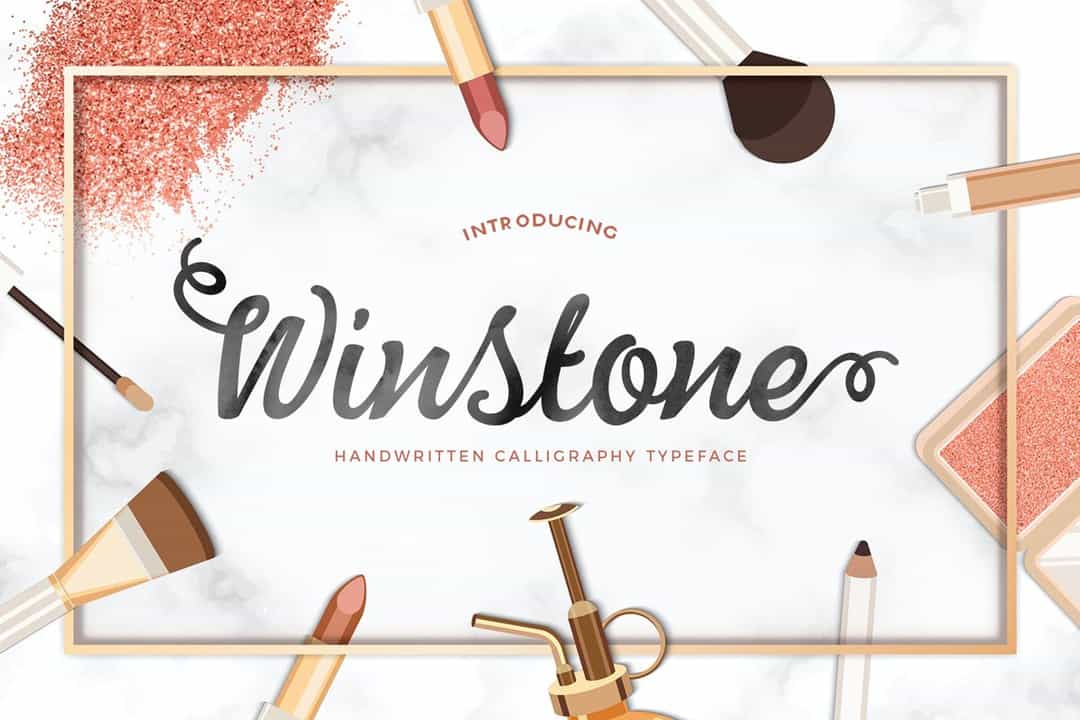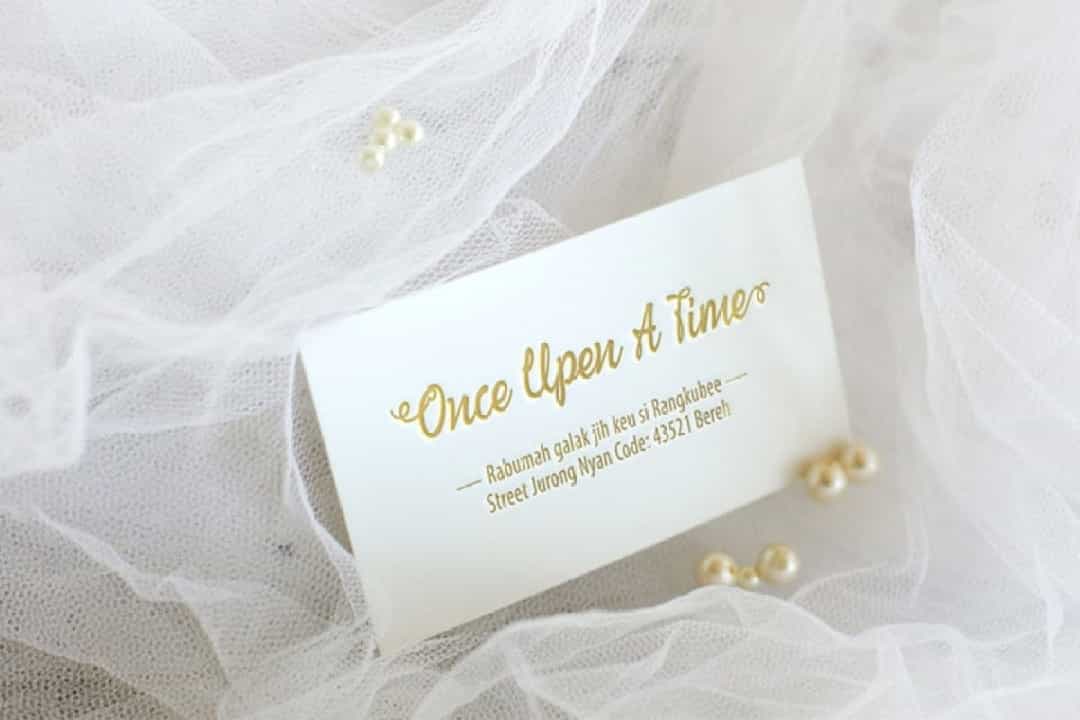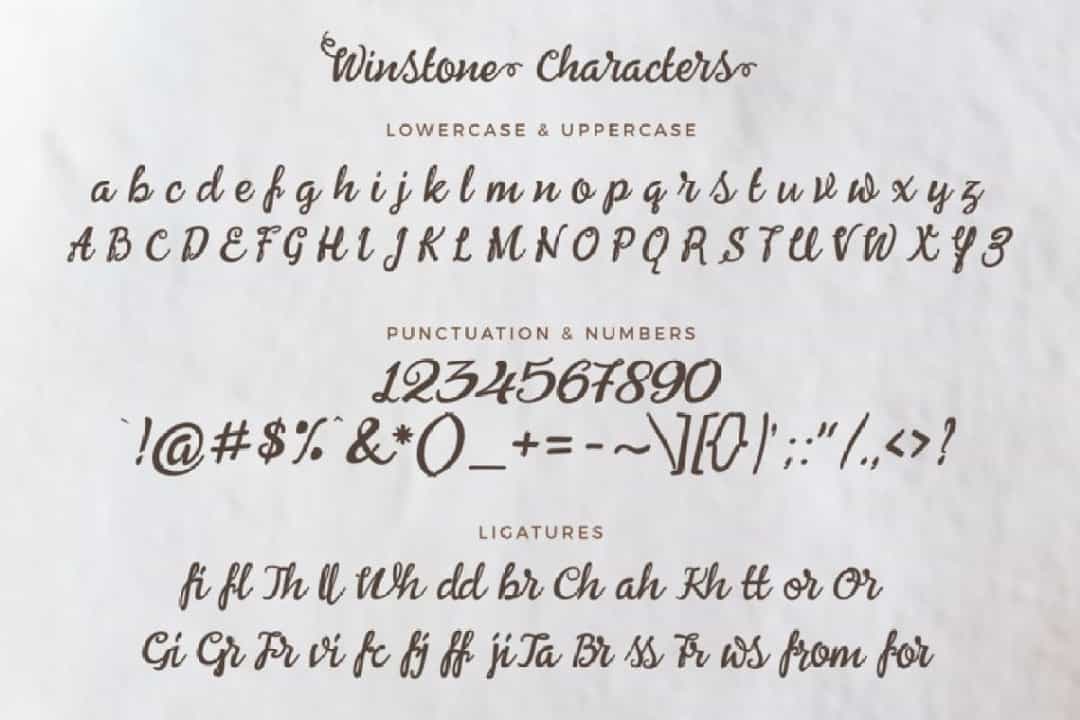
Winstone is a script type font with handwritten calligraphy with additional elements and ornaments on the letters and a wavy baseline! Ideal for invitations including greeting cards and also business cards, branding items, quotes, posters, and more!